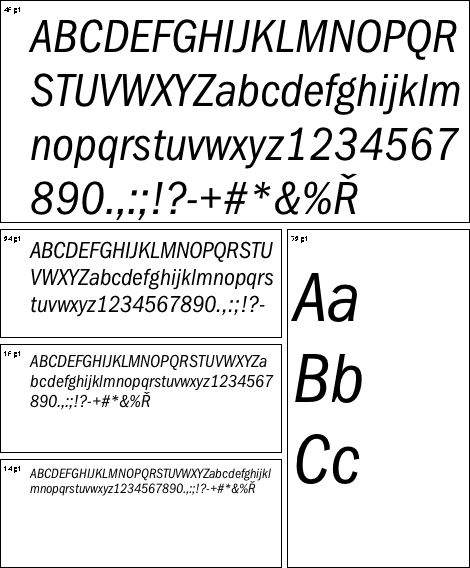
Franklin Gothic URW Book Condensed Italic (URW)
Franklin Gothic is a sans-serif typeface designed by Morris Fuller Benton in 1902 and is one of over 200 typefaces designed by this legendary American type designer. First released by American Type Founders (ATF), Franklin Gothic was originally designed as a Roman typeface with a single weight and only two variations in width. Additional variants were added as Franklin Gothic became popular. A condensed design was drawn in 1905, and an extra condensed in 1906. Five years later Benton added an italic to the family, and two years after that a shaded font was offered. In 1980, International Typeface Corporation (ITC) released a new and updated 4 weight version with complementary italics of Franklin Gothic designed by Victor Caruso. This version had a slightly enlarged x-height and a moderately condensed lowercase alphabet. In 1991, ITC commissioned the Font Bureau in Boston to create condensed, compressed and extra compressed versions of ITC Franklin Gothic. These fonts include complementary italics except for the extra compressed. Other foundries also released their own versions of Franklin Gothic over the years including Adobe, Monotype, Paratype, URW, E+F, ATF Type, Bitstream and others. The design is now offered in many font file formats and in many language formats including Central European, Cyrillic and Greek.Currently, FontHaus carries over 240 Franklin Gothic styles and versions of this classic.